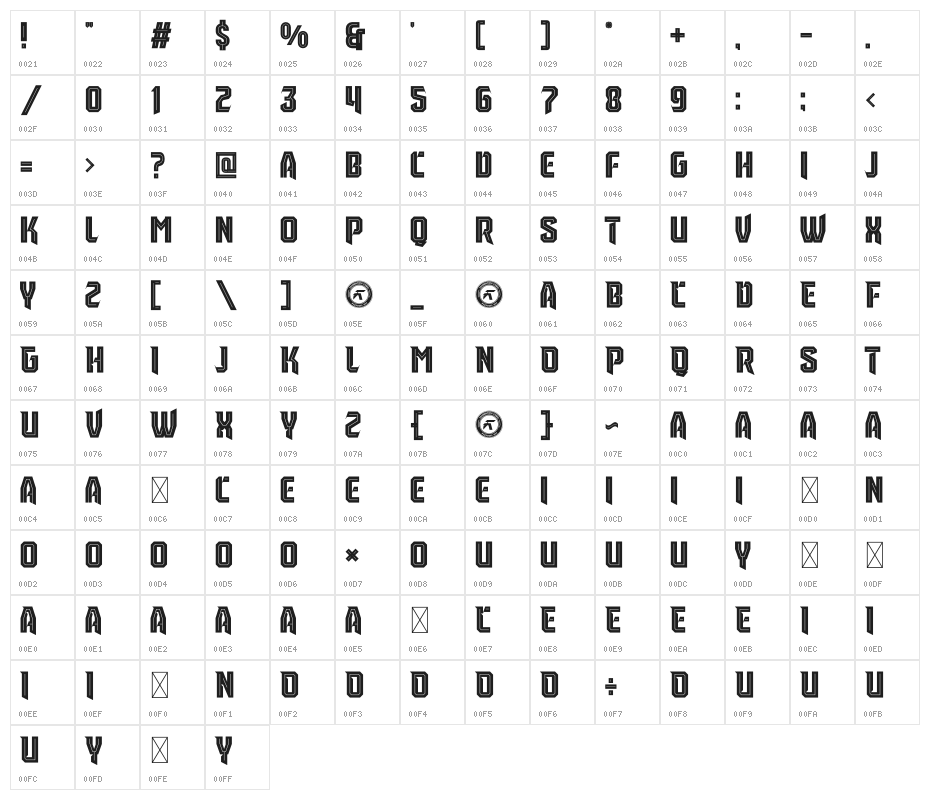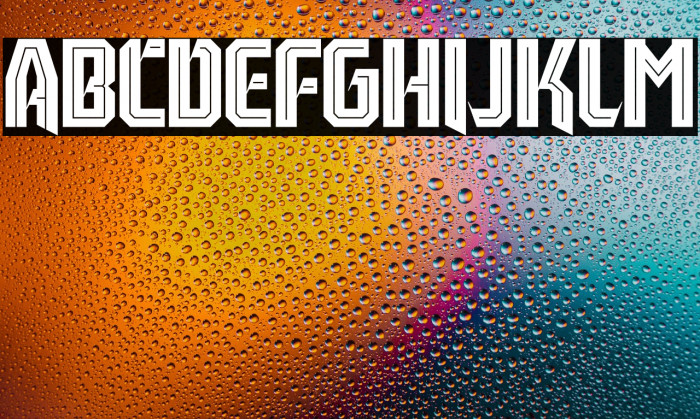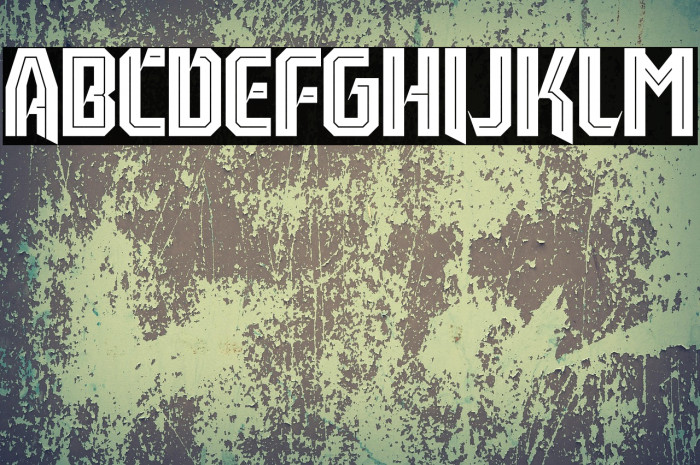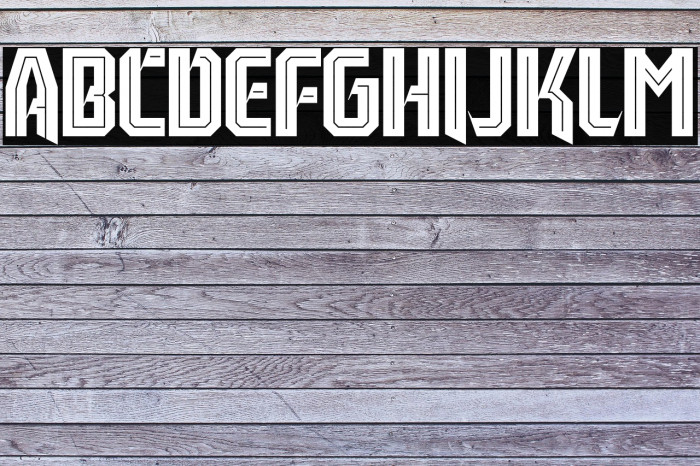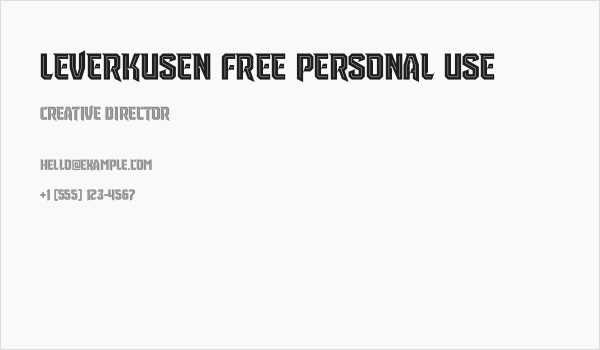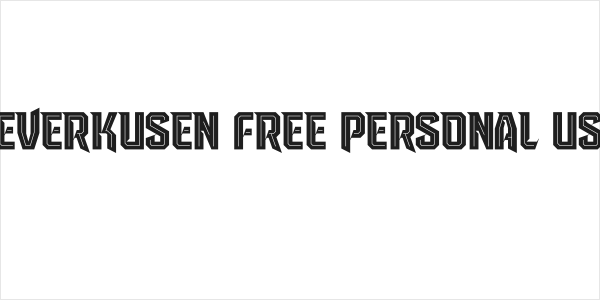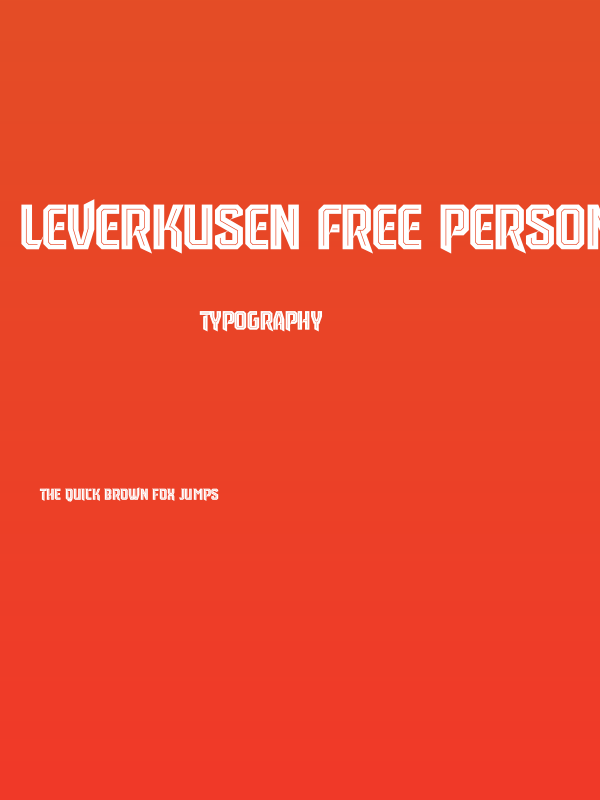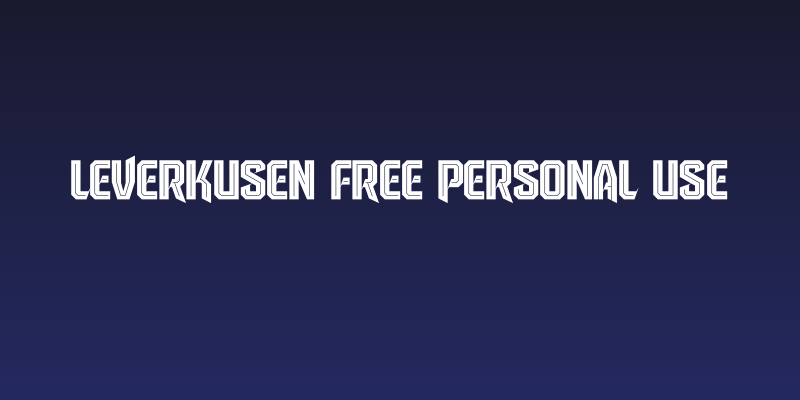
Leverkusen Free Personal Use Font
Leverkusen Free Personal Use Description
This font features a bold, geometric design with a strong emphasis on angular lines and sharp edges. The characters are outlined, giving them a three-dimensional appearance that adds depth and visual interest. The uppercase and lowercase letters maintain a consistent style, with each character exhibiting a unique, futuristic flair. Numbers and special characters are designed to match the overall aesthetic, making this font suitable for a variety of creative applications. The bold strokes and high contrast between the outlines and the inner spaces create a striking visual impact, ideal for attention-grabbing designs.
| Overall Style | Futuristic, Edgy |
| Proposed Projects | Ideal for posters, logos, video game graphics, and any project requiring a futuristic or edgy look. |